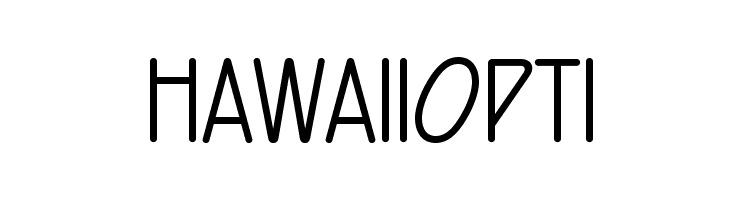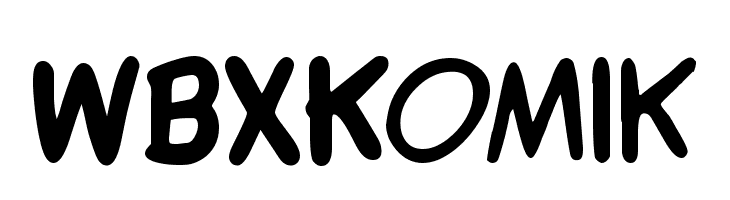
An elegant script font with flowing, interconnected letters and intricate swashes.
A monospaced font designed for clear and legible fraction display.
A bold, futuristic font with rounded edges and thick strokes.
A bold, condensed font with clean lines and tight spacing, offering modern clarity.
A light, elegant italic font with a modern and sophisticated style.
A distressed, hand-drawn font with angular, bold strokes and a rugged appearance.
A bold, playful font with rounded edges and a cohesive design.
A bold, angular font with a geometric and edgy style.
A sleek, extra-light italic sans-serif font with a modern aesthetic.
A futuristic, geometric font with angular and sharp edges.
Highly decorative ornamental frames and boxes.
A lively and dynamic handwritten font with fluid, flowing letterforms.
A geometric, angular font with a modern and technical appearance.
Hand-drawn shoe illustrations as font glyphs.
A cursive, handwritten-style font with elegant, flowing strokes.
Bold and expressive handwritten script font.
A playful, hand-drawn style with tall, narrow letters and a whimsical feel.
A lively and expressive handwritten font with fluid, dynamic strokes.
A bold, playful font with whimsical, rounded letterforms.
A geometric outline font with angular, structured characters.
A lively and playful script font with interconnected strokes and a whimsical touch.
A bold, extruded, hollow font with a three-dimensional, geometric style.
A bold, decorative font with intricate swirling patterns.
A playful, decorative font with bold, rounded characters and dotted patterns.
A futuristic, condensed italic font with bold, geometric characters.
A bold, futuristic font with sharp, angular lines and a laser-cut style.
A bold, slanted font with angular characters and a modern, dynamic style.
A playful font with letters inside apple shapes, perfect for whimsical projects.
A modern sans-serif font with bold, upside-down characters for a playful effect.
A playful, handwritten script font with dynamic strokes and elegant curves.
A playful, casual handwritten font with smooth, rounded edges.
A playful, handwritten font with smooth, rounded edges and a casual style.
A decorative, hand-drawn font with unique textures and patterns.
A collection of decorative heart and cherub designs for embellishment.
A bold, modern font with clean lines and a geometric style.